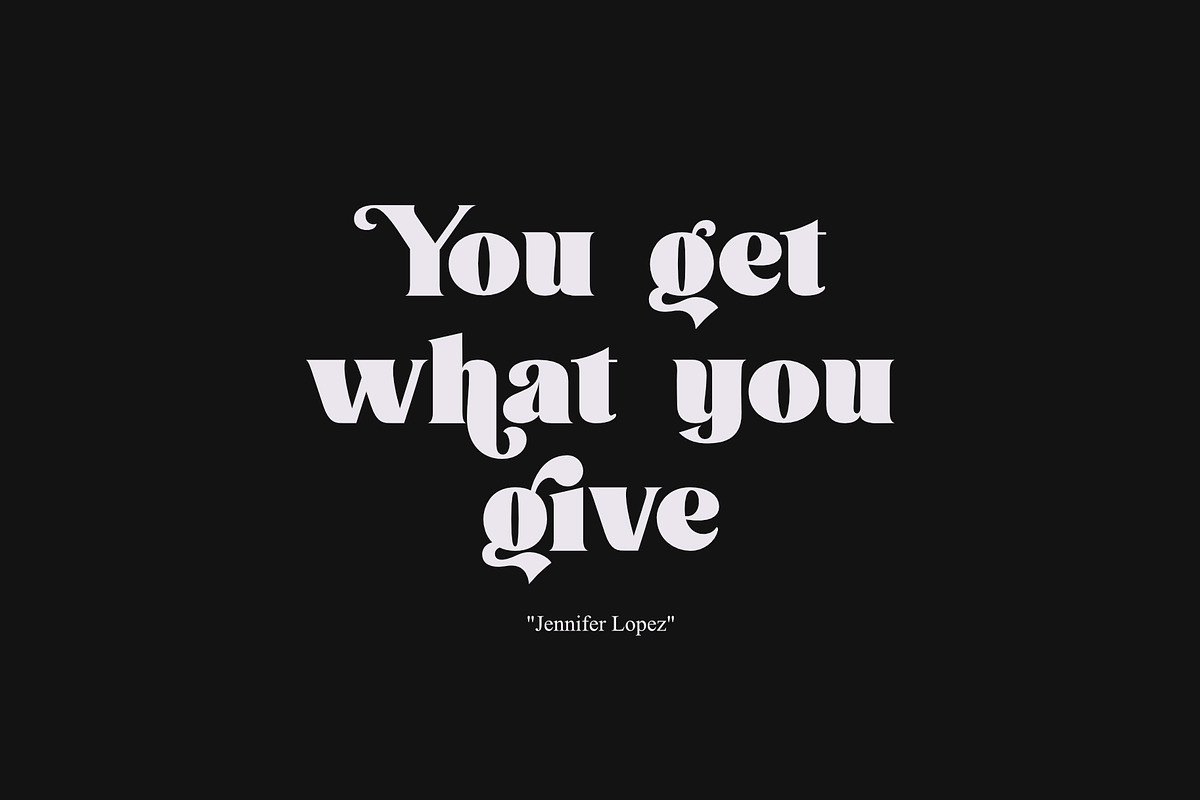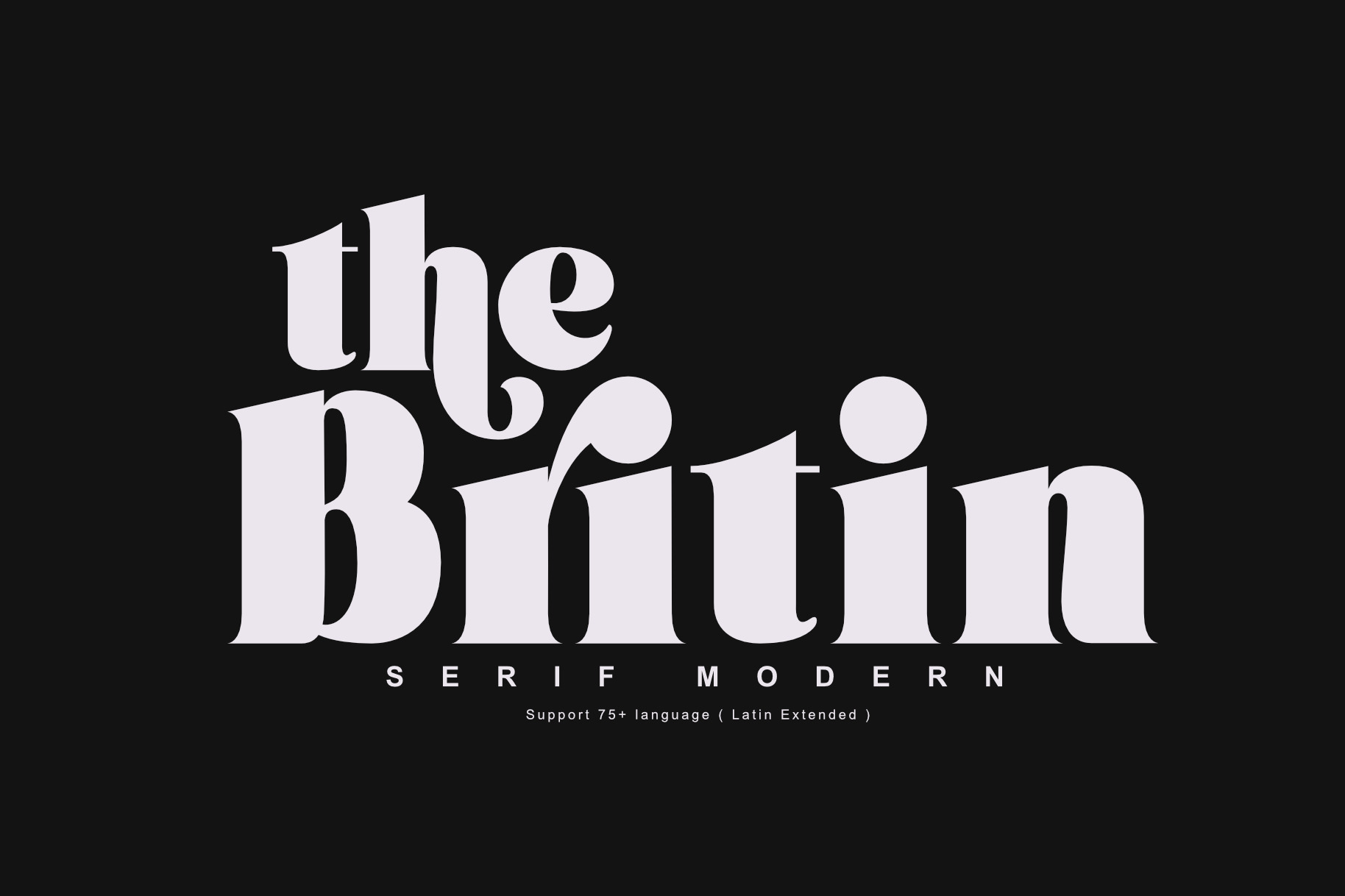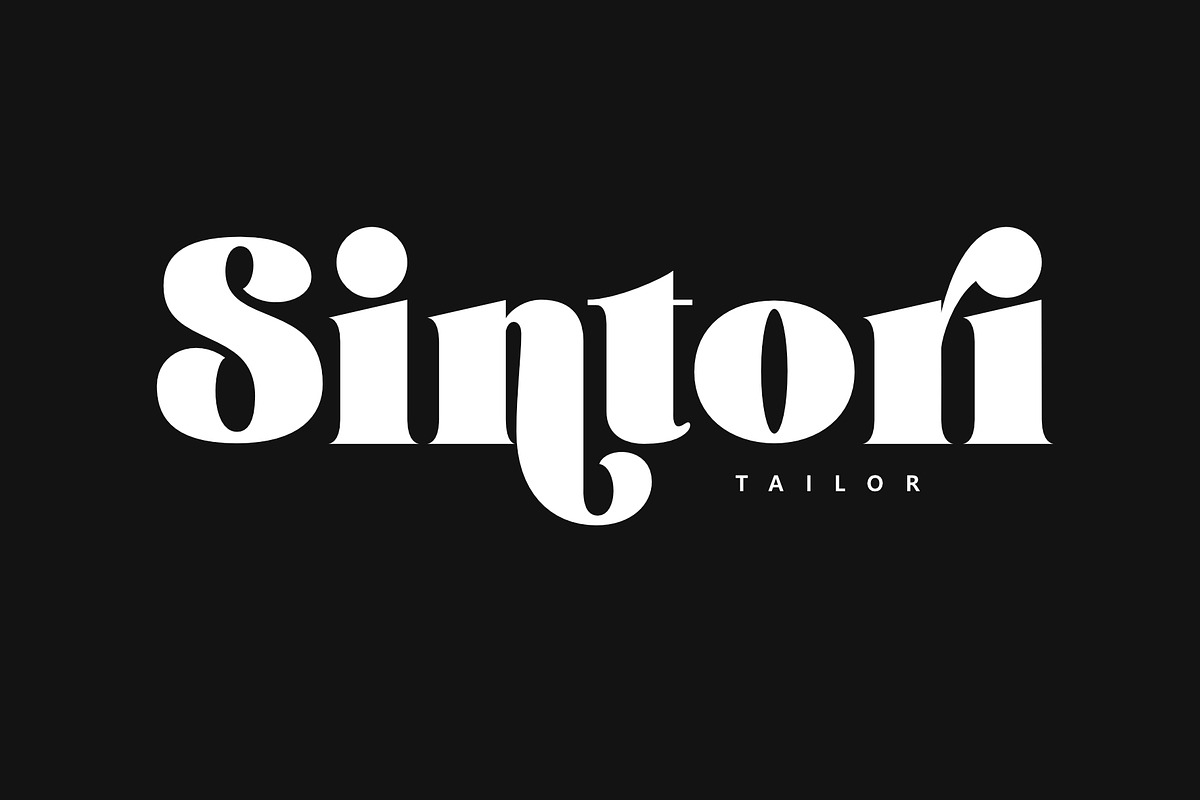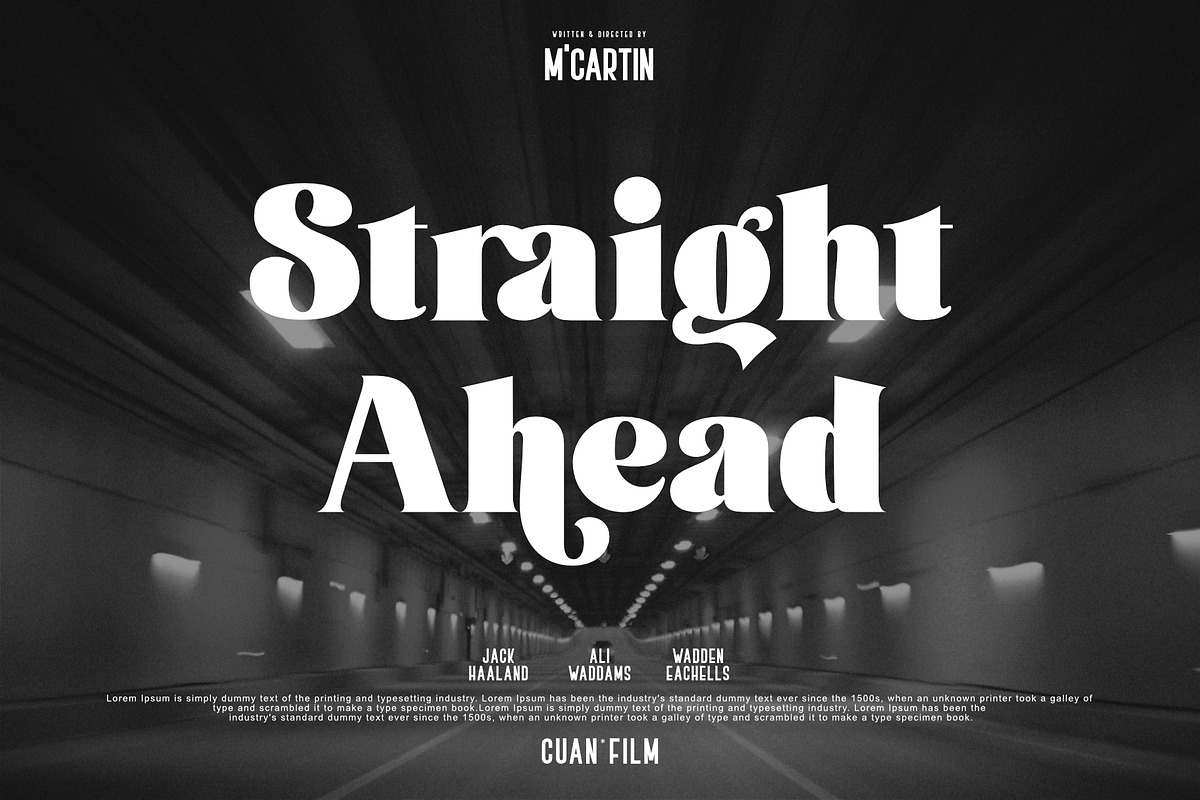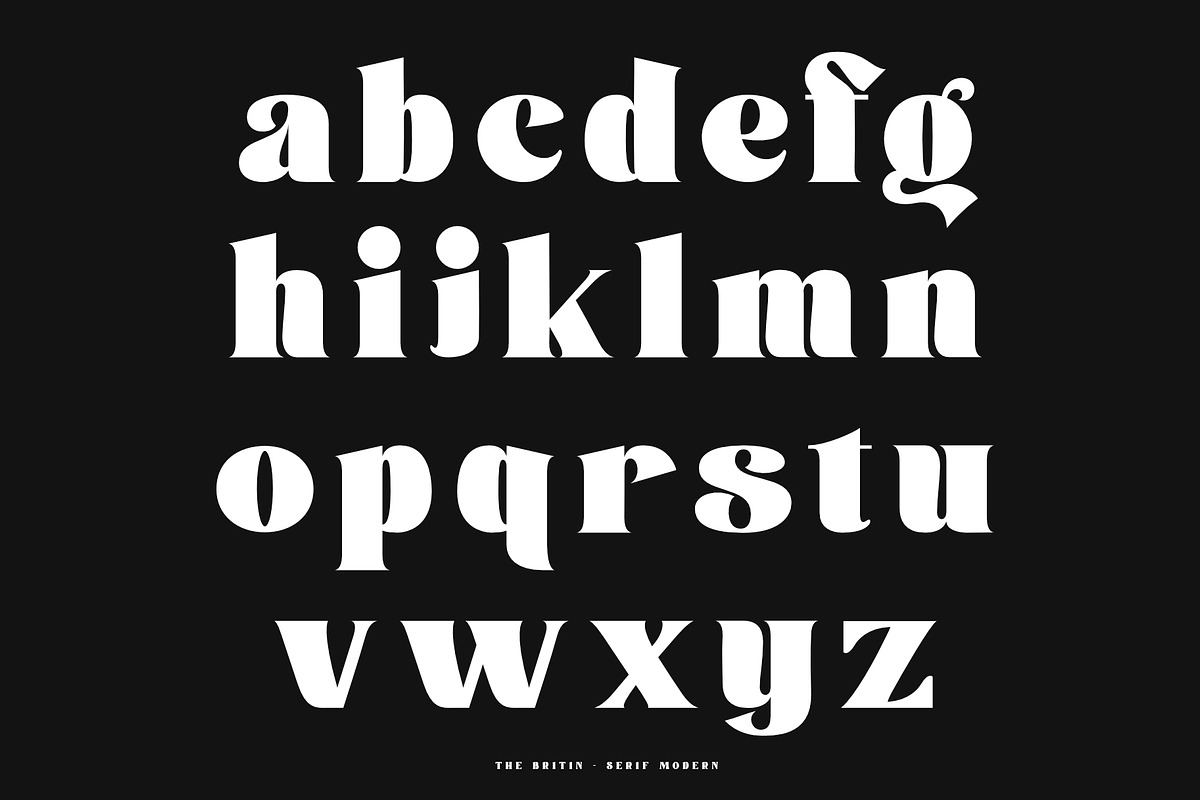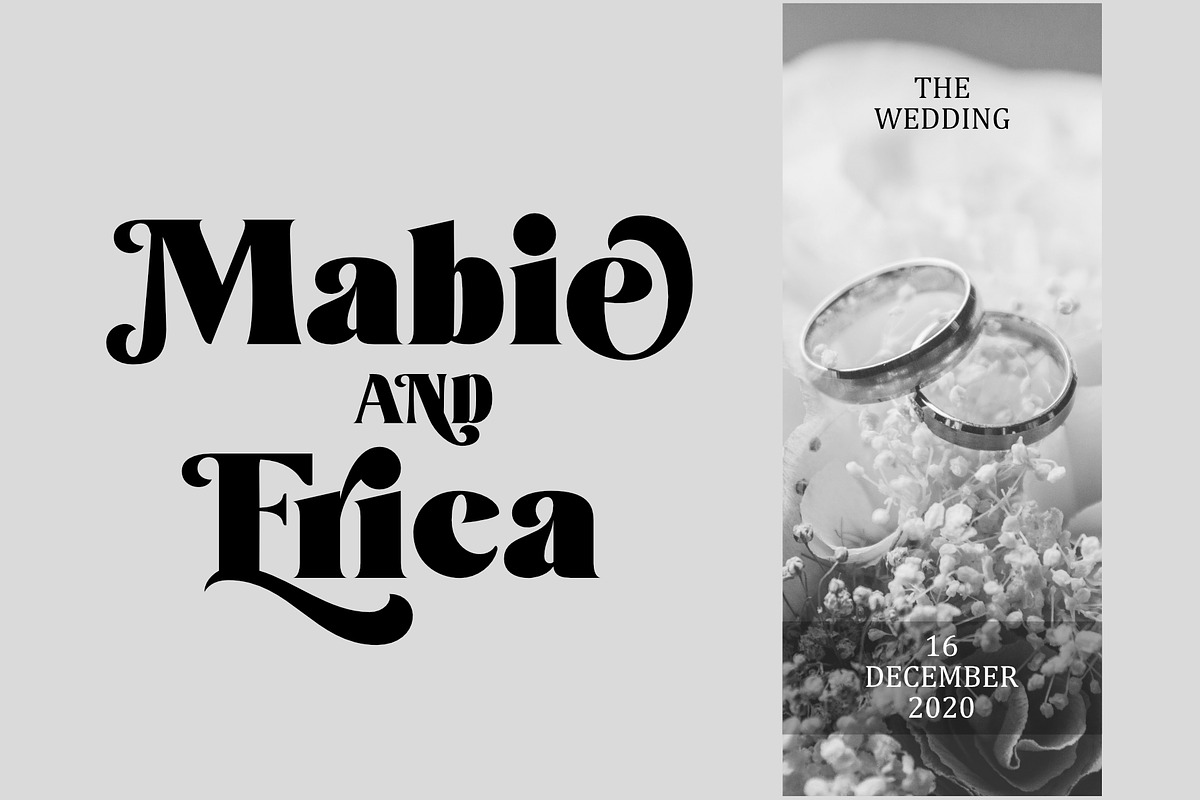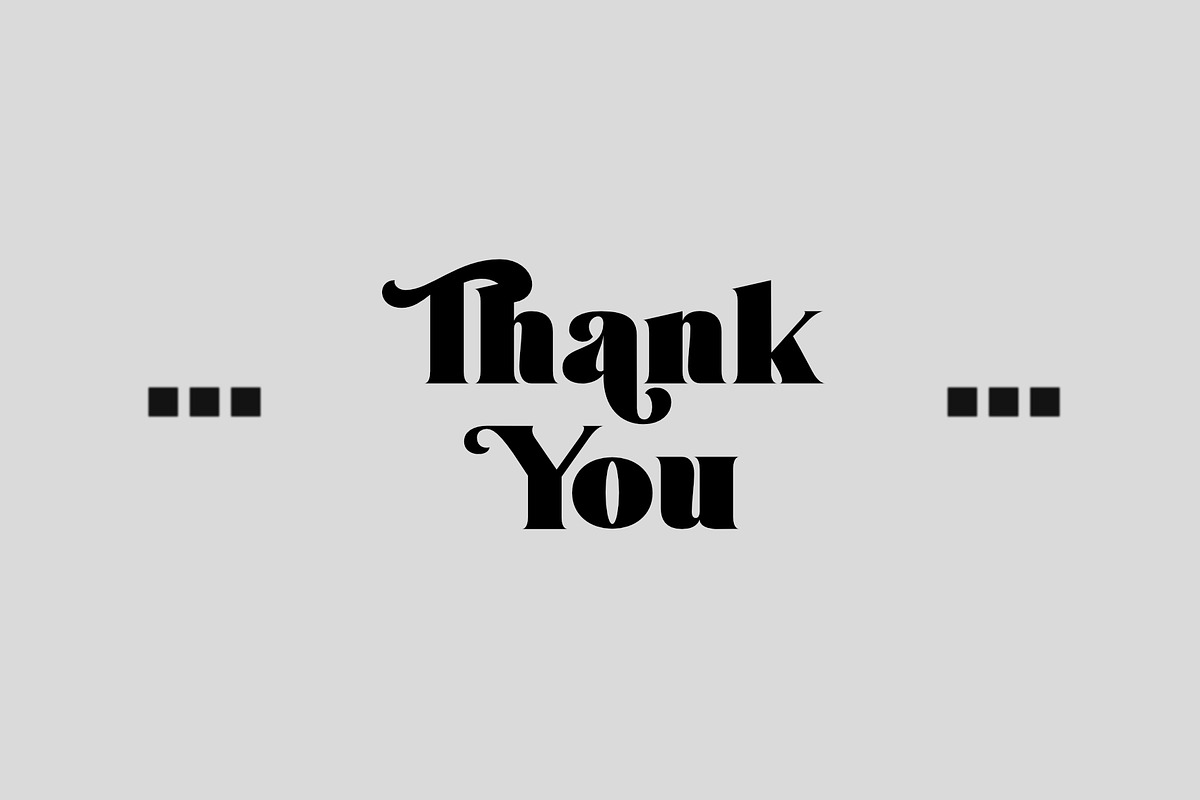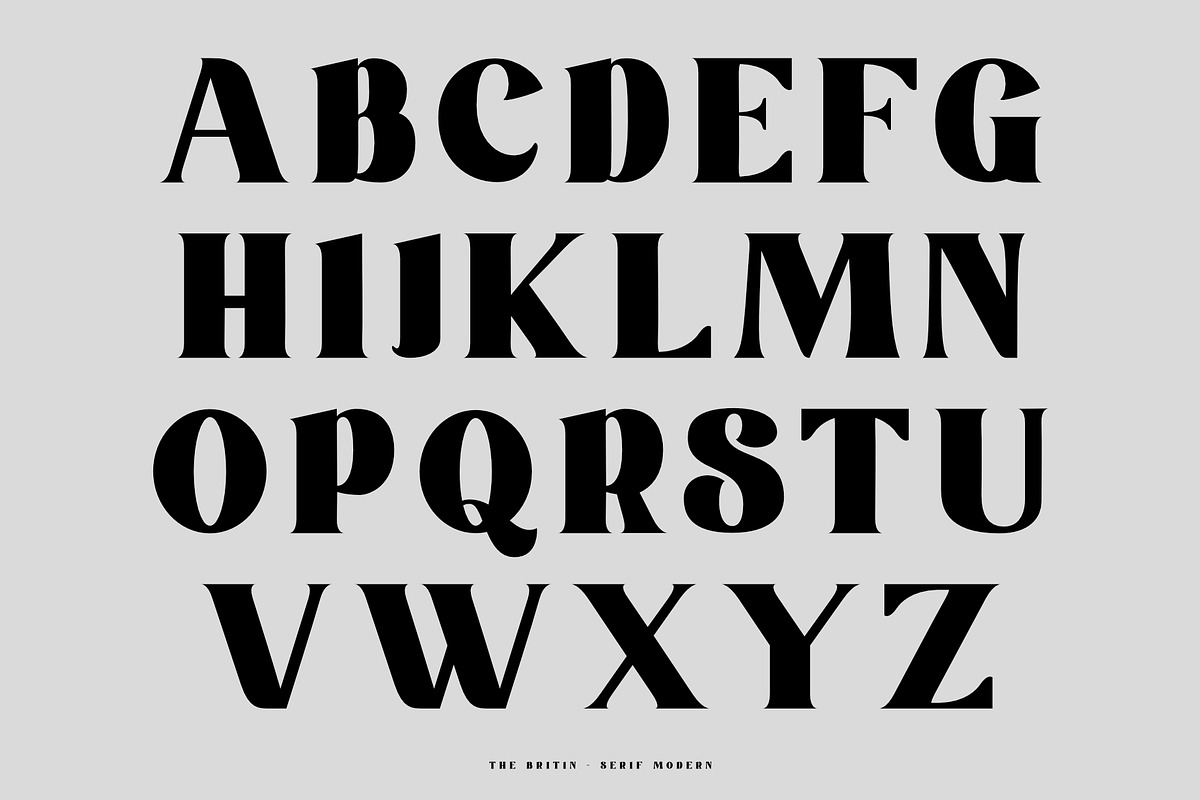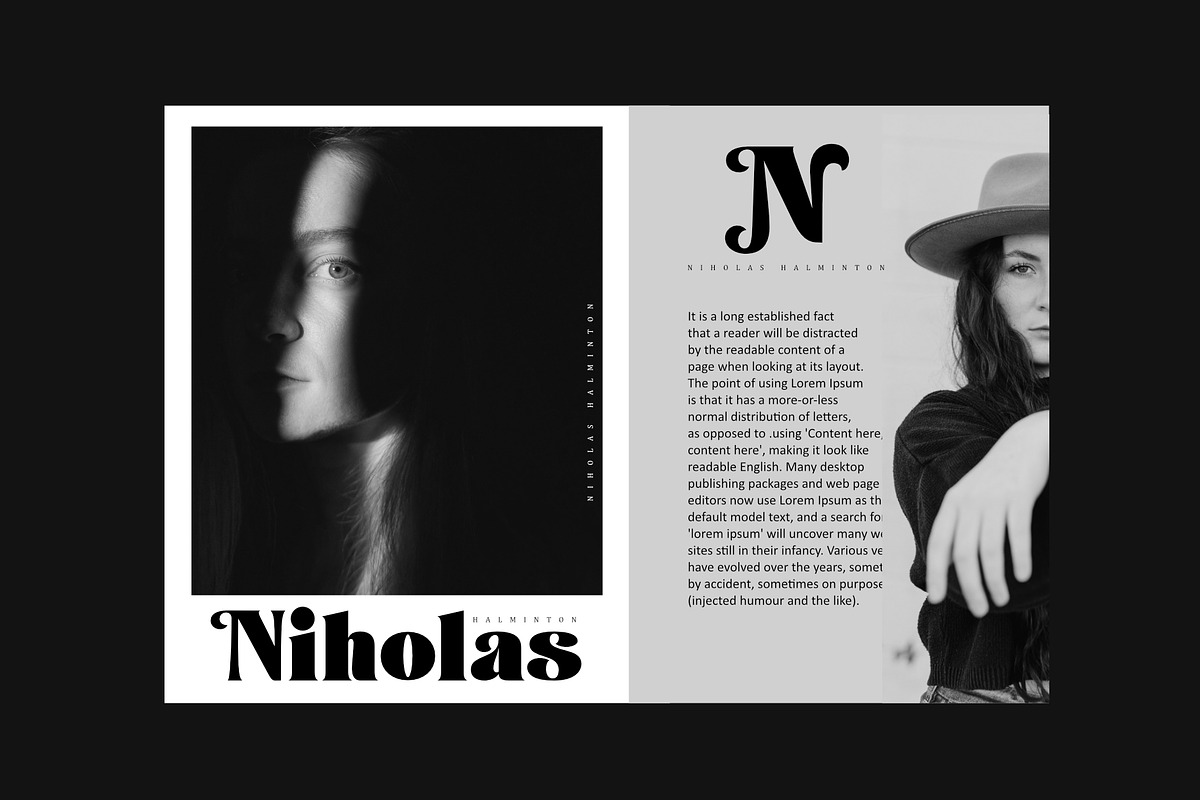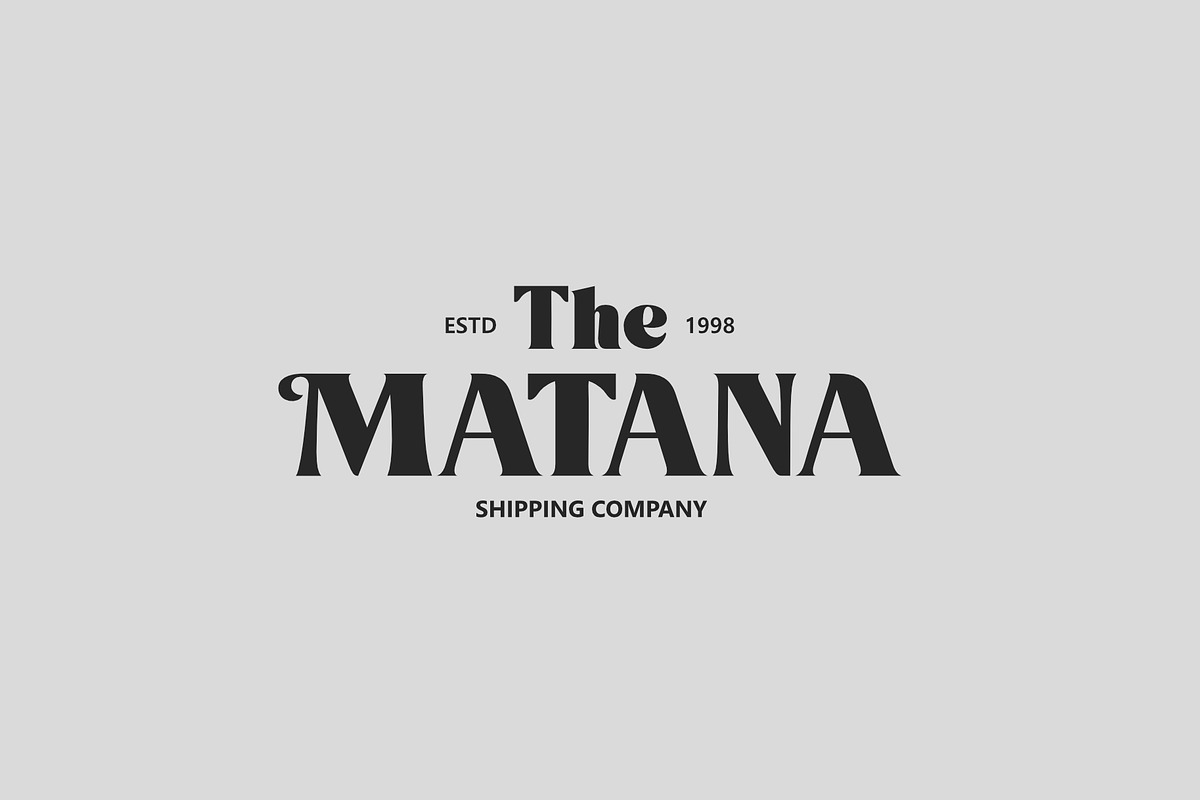
Britin Font
The Britin is a masculine modern serif. Supported by a ligature font, a unique alternative that makes it suitable for all types of projects such as branding, cover design, web design, packaging, social media, logo design and many more, so what are you waiting for!
- Uppercase Characters
- Lowercase Characters
- Support 75+ Language